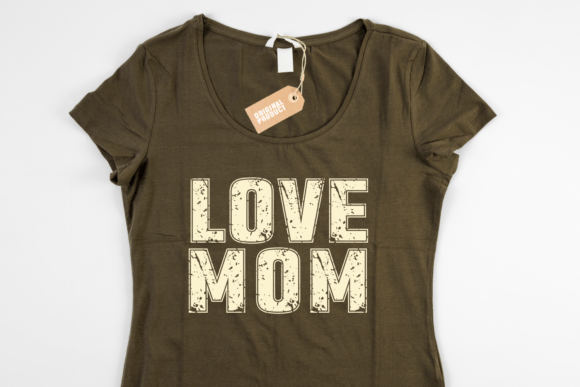
Classic History Font
Experience the enchantment of yesteryears with Classic History Font, a distinctively crafted display font that whisks you away to a bygone age brimming with endless allure – the era of Retro Font. Amplify your brand image and cover designs with this beautifully textured font, peppered with a distressed-style, laying down a pathway to limitless creativity. Excellently suited for embellishing visuals, logos, and logotypes, this inventive font breathes a unique character into all designs. It’s a flexible toolset designed to handle everything from quotes and posters to product personalization with complete ease. Intriguingly, it can give an air of military or educational flair to your artwork. Elevate your T-shirt designs or transform your clothing line with Classic History Font, a design asset crafted to amplify the charisma of every artwork it graces. This enduring retro font is much more than a mere design ingredient; it’s a charming revolution set to inject a spritz of the past into your modern design ventures. So, step into a world where style meets versatility with Classic History Font!